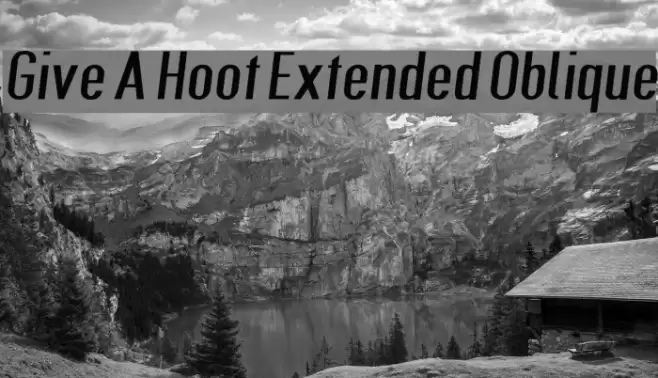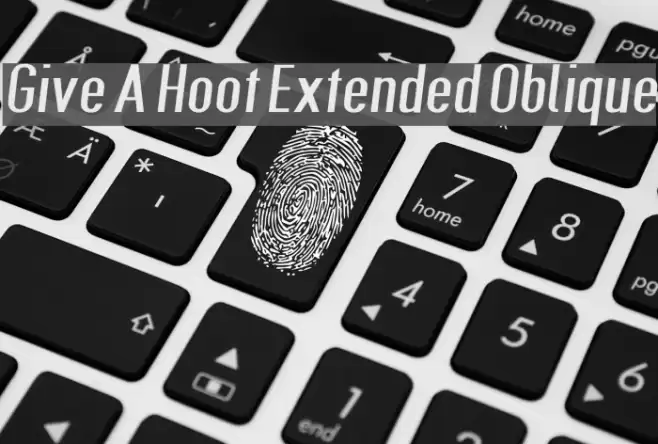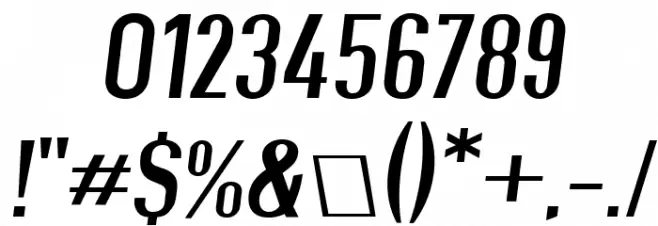
Give A Hoot Extended Oblique Font
Give A Hoot Extended Oblique Description
This font features an extended oblique style, characterized by its slanted and elongated letterforms. The uppercase and lowercase letters maintain a consistent angle, giving a dynamic and forward-moving appearance. The numerals and special characters follow the same oblique style, ensuring uniformity across all glyphs. The strokes are moderately thick, providing a bold presence without overwhelming the design. The overall aesthetic is modern and sleek, suitable for creating a sense of motion and energy. The spacing between characters is normal, allowing for readability while maintaining the font's distinctive style.
A modern, extended oblique font with dynamic, slanted letterforms from Uncategorized fonts.
- Proposed Projects: Ideal for sports branding, dynamic posters, modern advertising, and any project requiring a sense of movement.